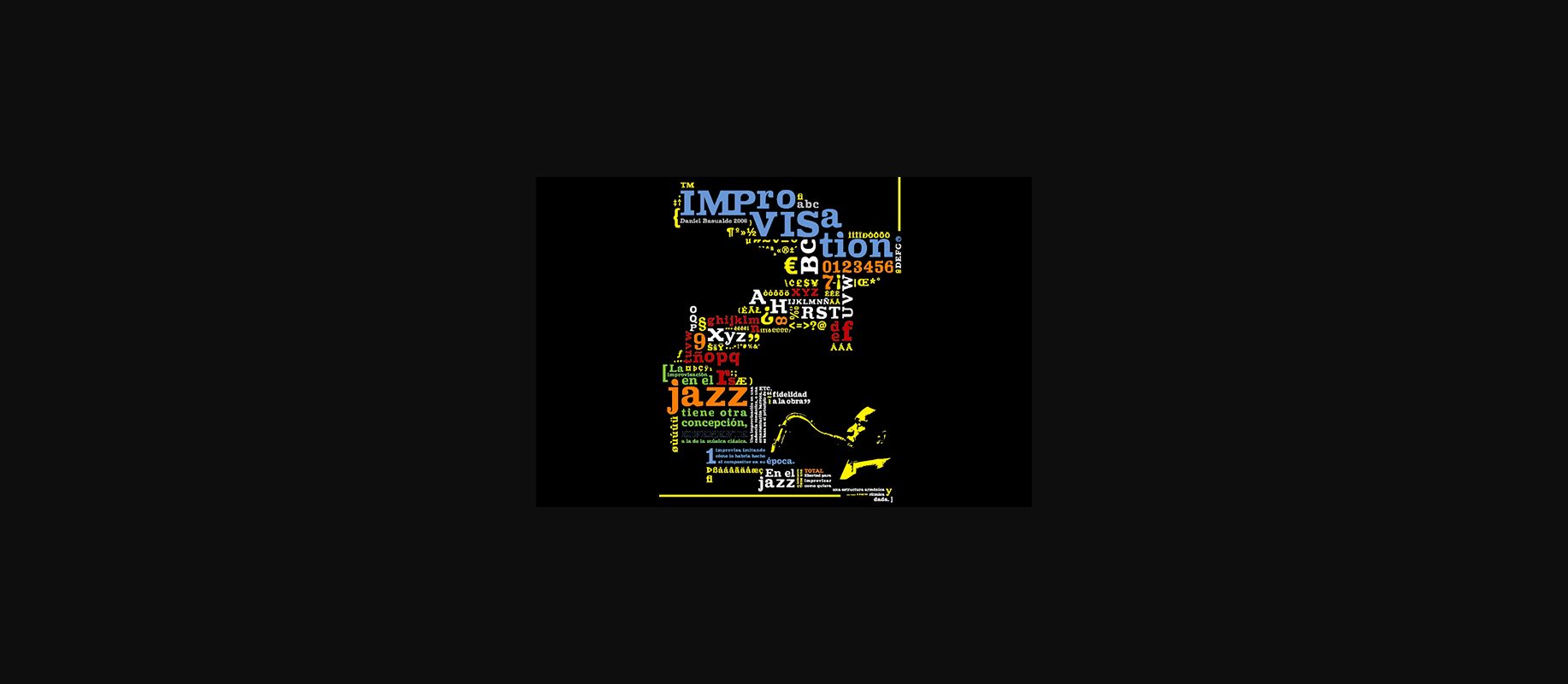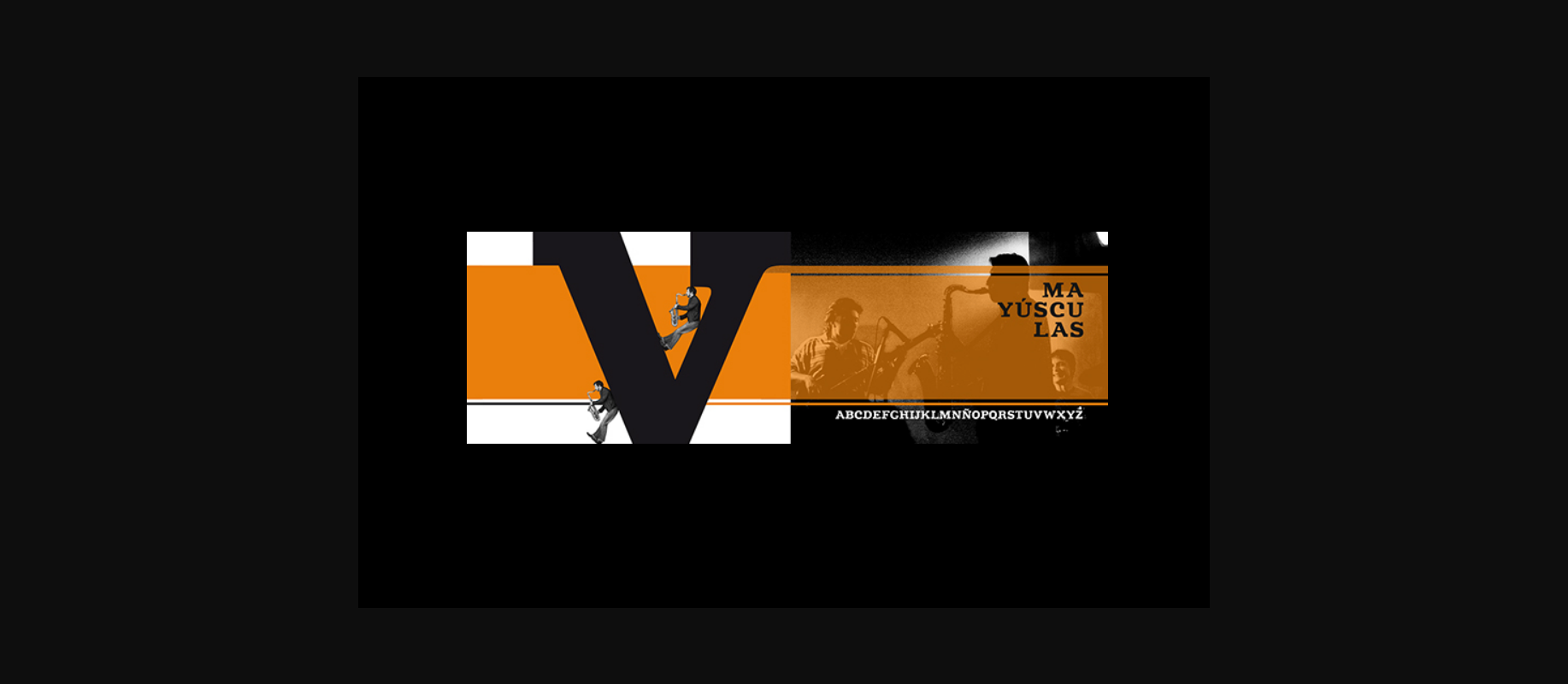
About Improvisation Font
Improvisation celebrates shapes in all their beauty. This playfully conceptual decorative font will look truly outstanding in a wide range of contexts.